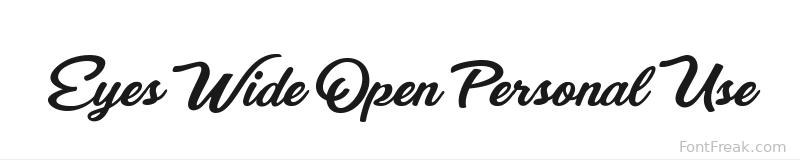
Eyes Wide Open Bold Personal Use
Eyes Wide Open Personal Use
The Eyes Wide Open Bold Personal Use font by Billy Argel Fonts is a striking display typeface characterized by its bold and expressive style. As a script font, it exudes a sense of personality and flair, making it perfect for projects that require a touch of creativity. The visual characteristics include a smooth, flowing stroke with ample contrast, allowing for easy readability while maintaining an artistic appeal. The spacing is well-balanced, ensuring clarity in both large and small text applications.
This font is particularly well-suited for a variety of creative use cases. It shines in wedding invitations, where its elegant curves can evoke romance and sophistication. Additionally, it works beautifully for movie posters, lending an air of drama and excitement that captures attention. Restaurant menus can also benefit from its unique style, making dishes stand out with a memorable visual identity. Content creators looking to enhance their social media graphics will find it an excellent choice for eye-catching headlines and quotes, attracting engagement and interaction.
Targeted toward graphic designers, small business owners, and content creators, Eyes Wide Open Bold Personal Use offers versatility and charm. It allows users to express their brand's personality while ensuring that the text remains legible and inviting. The font's freeware license makes it accessible for personal projects, giving users the freedom to incorporate it into their designs without financial constraints.
What sets the Eyes Wide Open Bold Personal Use font apart is its ability to blend artistic flair with functional readability. This font not only catches the eye but also conveys a message of creativity and style, making it a standout choice for anyone looking to leave a lasting impression. For those interested in enhancing their design toolkit, the Eyes Wide Open Bold Personal Use font free download is an excellent opportunity to explore its potential.